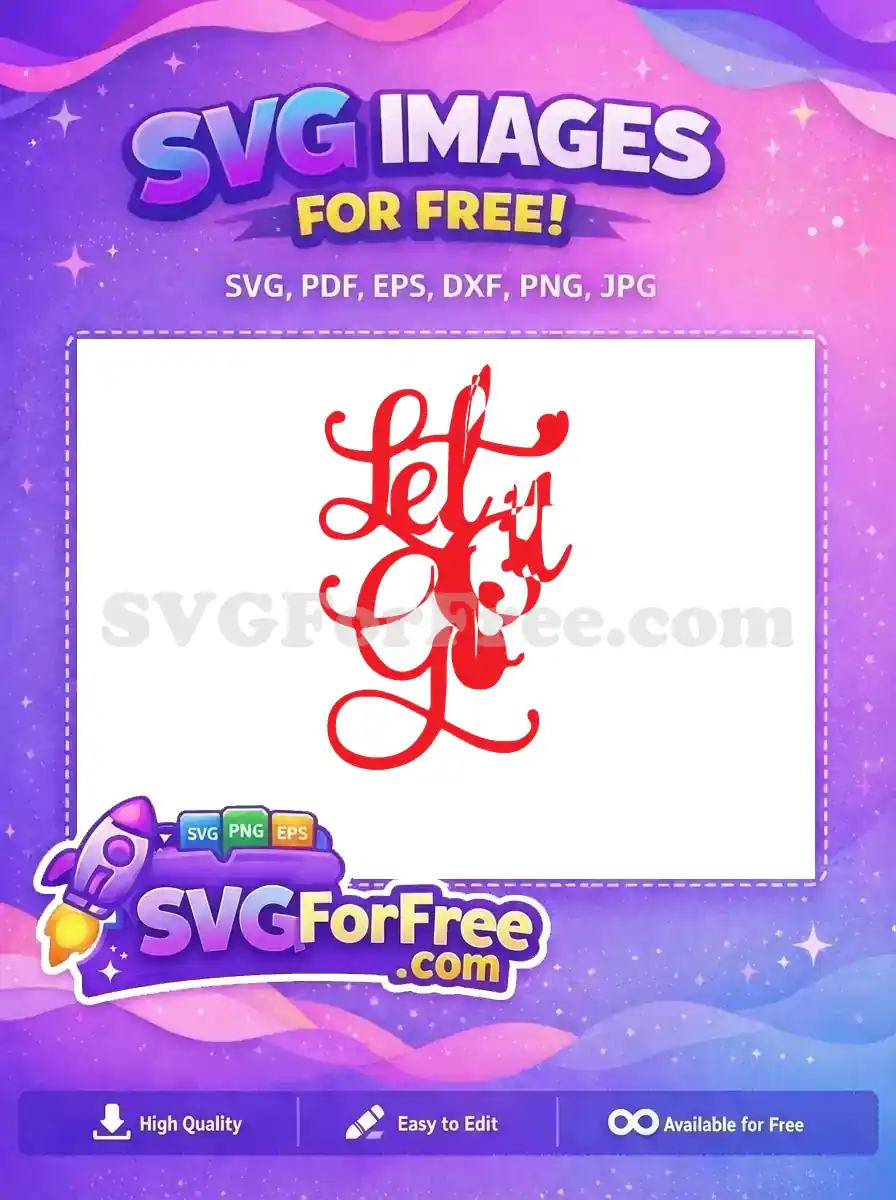
Free Red Script Font Free Let it Go Frozen Free SVG – Instant Download
Red stylized typography of the song title free design.
Free Red Script Font Free Let it Go Frozen Free SVG